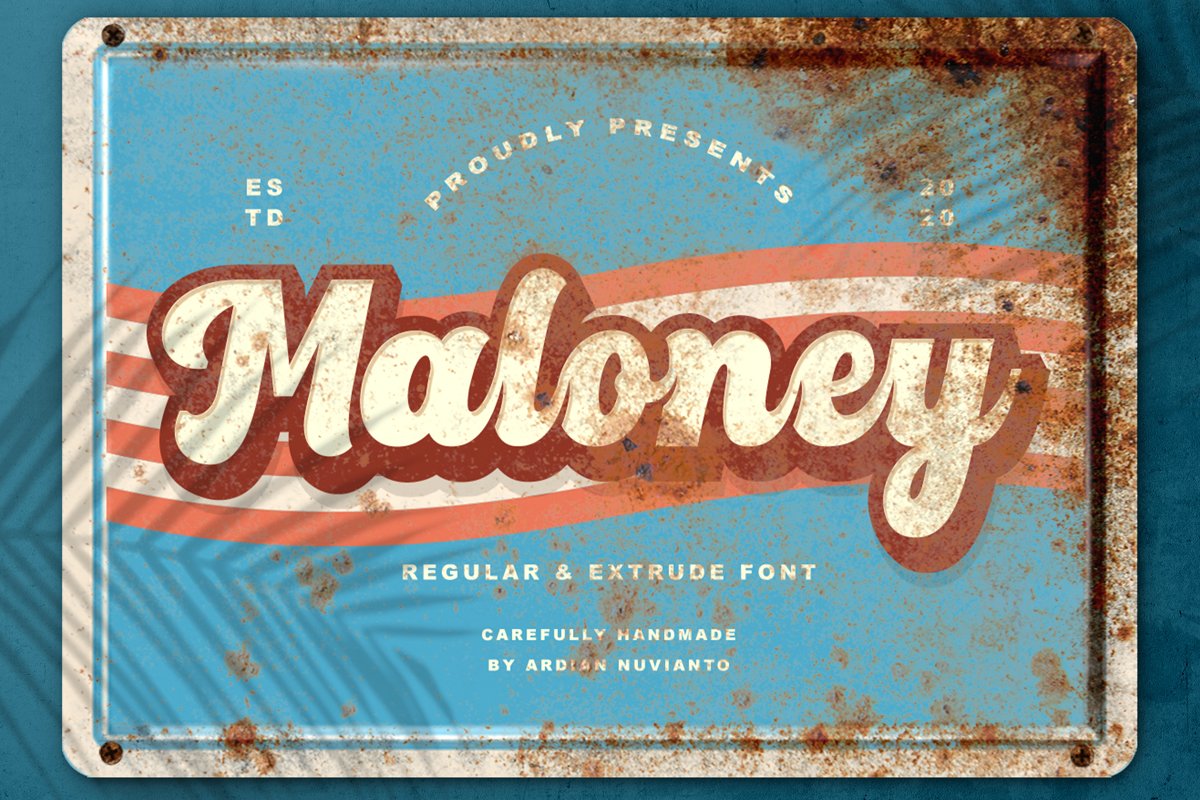
Maloney
Maloney extrude
Here Comes my new font, Maloney font.
Maloney font is an inspiring retro display font.
It comes with a solid and extrude version, and is perfect for creating logos,
posters, brand packaging, labels, clothing, music covers, and much more!
Maloney font also have Contextual alternate features, that can make your letter have sliced view effect.
It can make your brand or/ project look more artistyc.